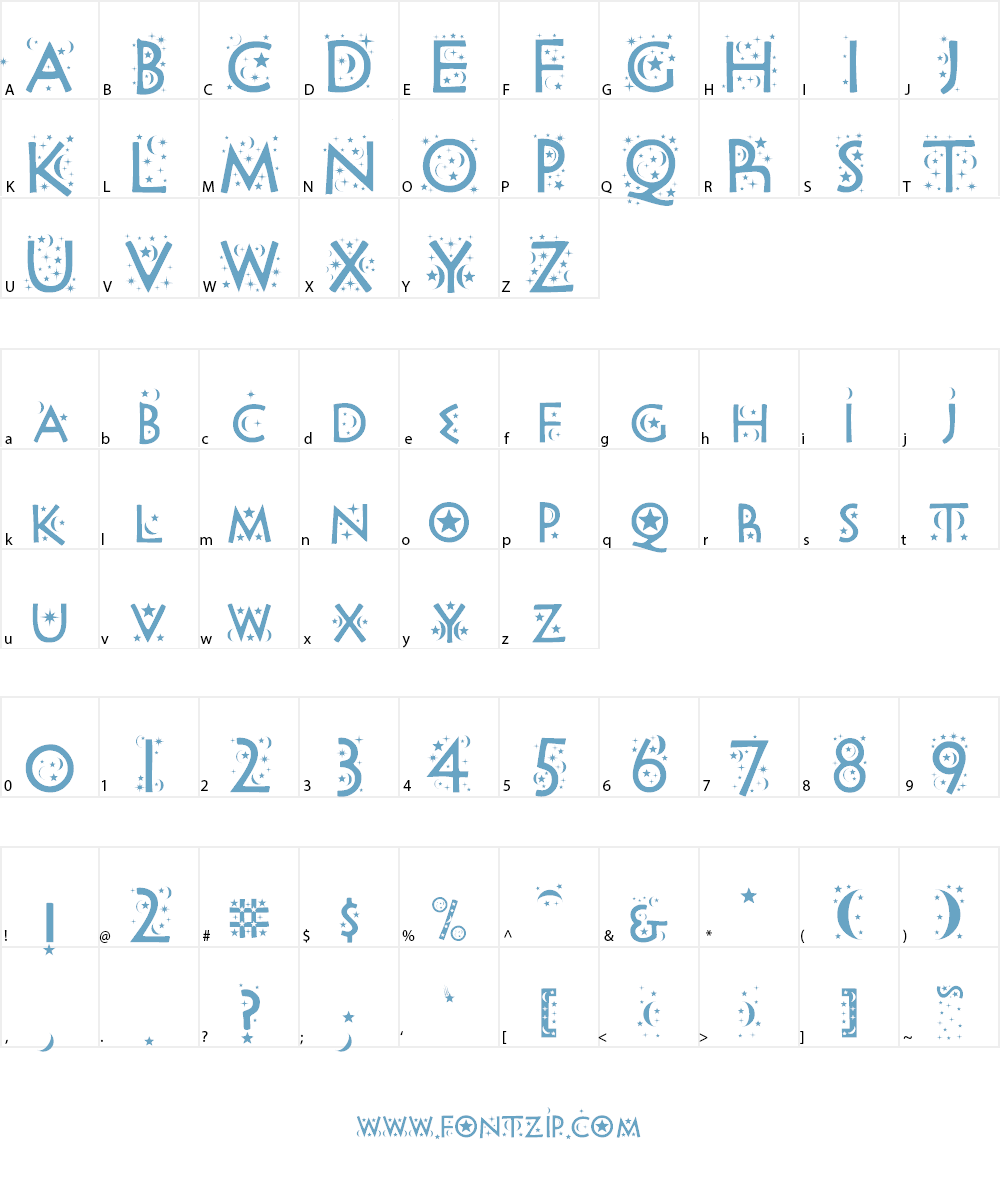
A former Lockergnome font of the week, FontFace font of the day, and a four-bee font. some 1998-99 high school yearbook as the header font (don't know the high school... the advisor's name was David Sumrall and the email he sent ended with "Thanks and God Bless," so I'm guessing it was a small town or a private school. Somewhere in the US, someone is reminiscing fondly over a yearbook with NightSky titles. Competed in the Friday Nite Type Fight and won the week of 2/27-3/5, 1999. In use on this Ace of Base fanpage as well as the womensjourneys.com website! Wow, someone at Graceful Bee used it as the basis for a lesson in creative lettering! By Jason